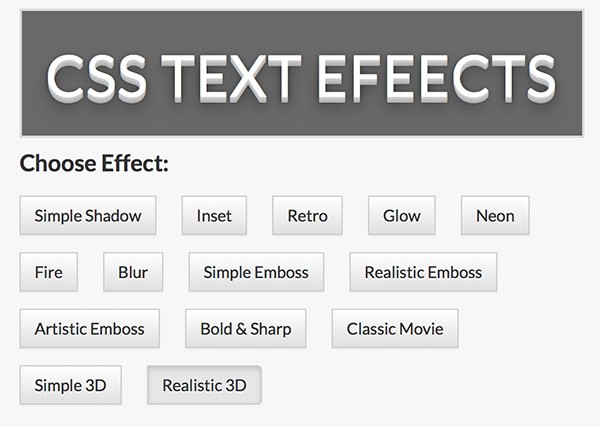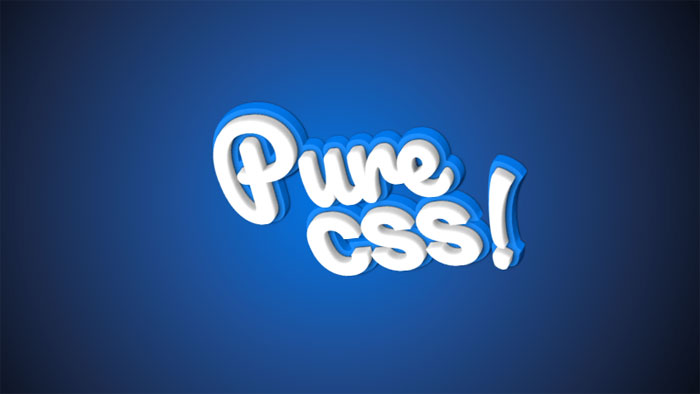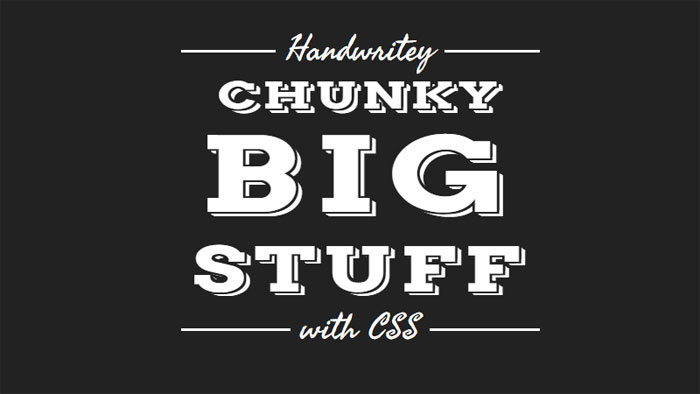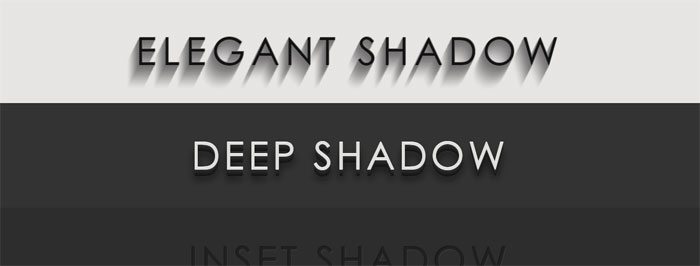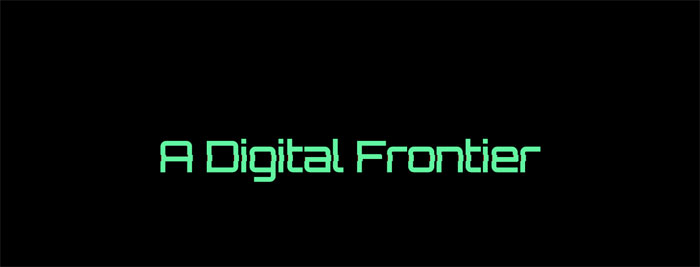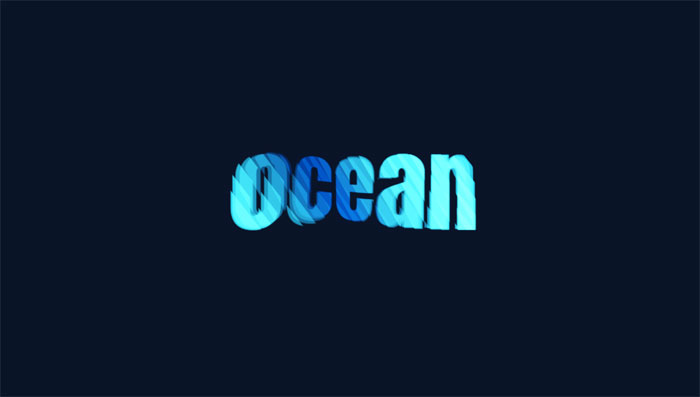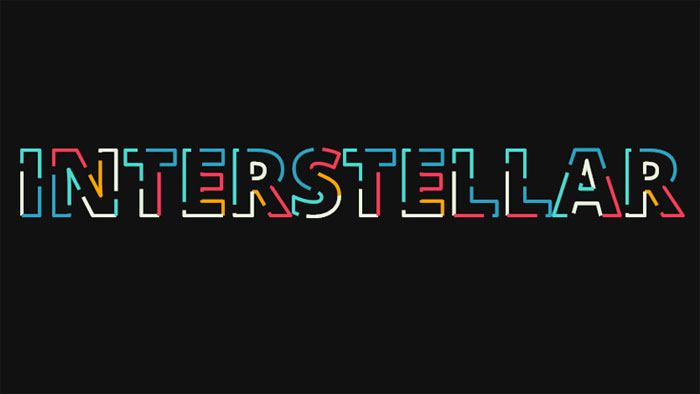
But juan brujo has tried to play with it by allowing the users to increase or decrease the effect as and when needed. A nice masked background animation.
92 Inspiration Cool Text Font Css Free Download, This easy css text shadow tutorial will show you step by step how to create 3d font with multiple css shadows by stacking multiple css3 text shadow properties, then go a step further and use the css text transform and css transition properties to make the 3d text pop out / zoom on hover. 20 examples of beautiful css typography design.
Select the font of your choice from the generator below and just click on the copy. And we have a huge collection of more than 100+ fonts. Cool css text effects to make your website engaging. This easy css text shadow tutorial will show you step by step how to create 3d font with multiple css shadows by stacking multiple css3 text shadow properties, then go a step further and use the css text transform and css transition properties to make the 3d text pop out / zoom on hover.
It greatly affects the mood of the reader. Css example / html example; See the pen (cool) text effect by hakkam abdullah on codepen.dark. The font includes 300+ glyphs and it’s completely free to use with personal and commercial projects. 20 Best CSS3 Text Effect Tutorials EntheosWeb.
Making the web more beautiful, fast, and open through great typography A clean bubbling animation to use in. But juan brujo has tried to play with it by allowing the users to increase or decrease the effect as and when needed. Make cool and clever text effects with css text. Text Filling with Water Pure CSS Tutorials Cool CSS Animation Effects.
When you’re reading stuff related to food, you’re going to find a lot of. Then fill out a form and you'll have your own custom image created on the fly. Recreated using flexbox, grid, text shadows, and text strokes. A nice masked background animation. 116 Cool CSS Text Effects Examples That You Can Download.
It greatly affects the mood of the reader. They create a modern and minimalistic look. Grumpy wizards make toxic brew for the evil queen and jack. This is a very small code that gives a “knife sliced” effect on the text, written by robert messerle. CSS Text Effects 20 Cool and Amazing Examples Web Development & Designing.
The color property is used to set the color of the text. A clean bubbling animation to use in. This one only uses html and css, making it easy to work with. Using rgba on the text and the shadow allows the alpha channel to be set to 50% transparency so the underlying text is visible through the shadow. 116 Cool CSS Text Effects Examples That You Can Download.
Crossing on scroll css text effect. So currently this is basically a duplicate of the above, but i think i'll try to collect a few. Cool css text effects to make your website engaging. Set the desired style for your text in the control panel and get your code instantly. Using CSS TextShadow to Create Cool Text Effects Dev HTML / CSS.
Normal fonts benefits of using cool fonts: Moving the mouse makes a cool 3d text effect in this example. This is one of the most commonly used css text animations. Select the font of your choice from the generator below and just click on the copy. Cool Css Glowing Text Animation Tutorial Html Css Blinking Text.
This easy css text shadow tutorial will show you step by step how to create 3d font with multiple css shadows by stacking multiple css3 text shadow properties, then go a step further and use the css text transform and css transition properties to make the 3d text pop out / zoom on hover. This pen encountered several css quirks. Making the web more beautiful, fast, and open through great typography This one only uses html and css, making it easy to work with. 40 Creative CSS3 Text Effects and Tutorials.
The color is specified by: A recreation of the western electric big button phone produced in the 1970s. The anaglyphic text effect recreates the cool effect used on old 3d images. Creating amazing css text effects example wth sourse code.developed using html, css, javascript, jquery and svg.